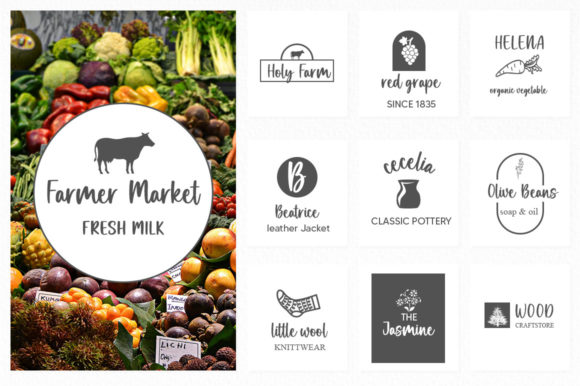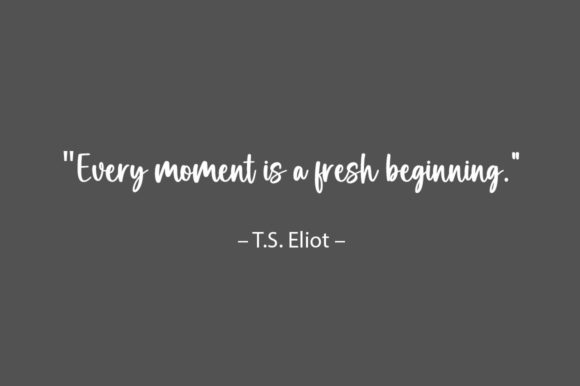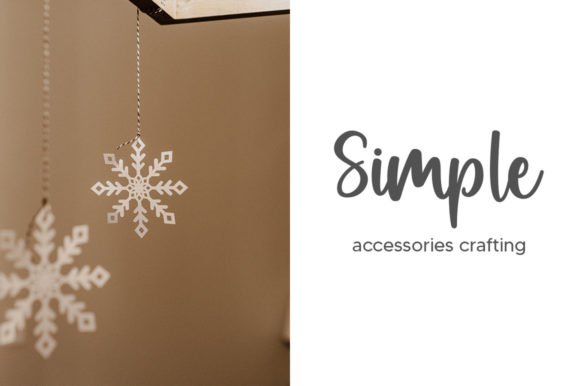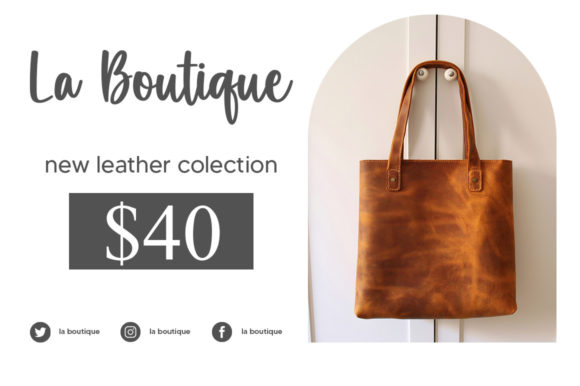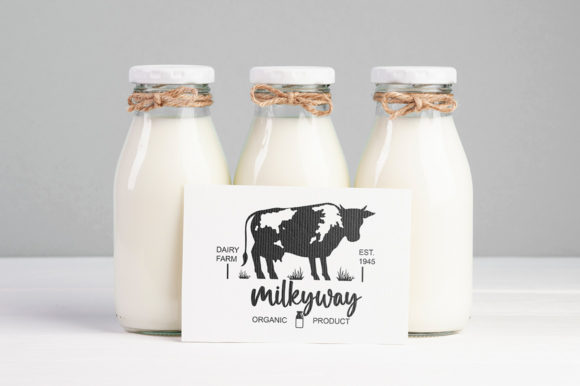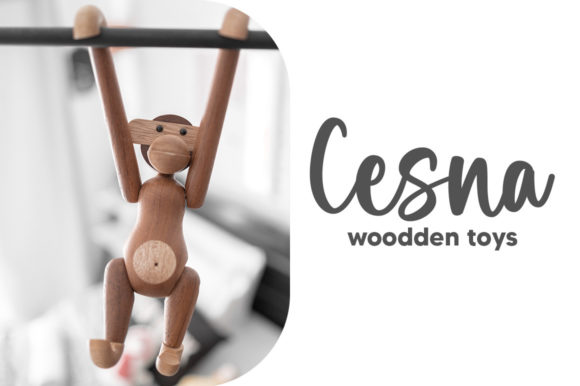
Introduction to Maple Dream Font Font
Fonts play a crucial role in design, and the Maple Dream Font font is a typeface that brings both character and versatility to any project. Whether you’re working on a branding project, a website, or a print design, the Maple Dream Font font offers a unique style that can elevate your work.
Maple Dream is a stylish and incredibly elegant script font.
It looks stunning on wedding invitations, thank you cards, quotes, greeting cards, logos, business cards and every other design which needs a handwritten touch .
Key Features of Maple Dream Font Font
Why Choose Maple Dream Font Font?
The Maple Dream Font font is more than just a typeface – it’s a design tool that helps you communicate your message with style and clarity. Its unique character set and versatile design make it suitable for a wide range of applications, from elegant invitations to bold headlines.
With its carefully crafted letterforms and balanced proportions, the Maple Dream Font font ensures readability and visual appeal across all mediums.
What makes Maple Dream Font font special?
The Maple Dream Font font stands out with its unique design, exceptional readability, and versatility across various design applications.